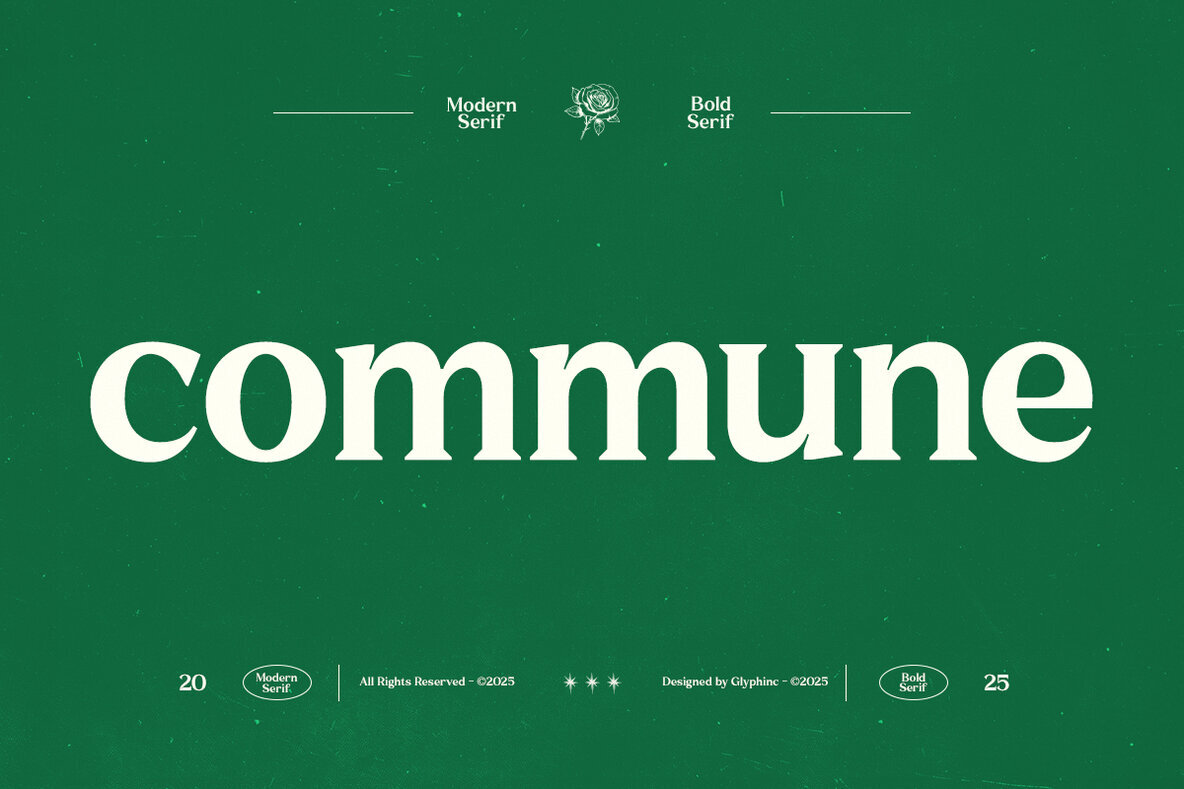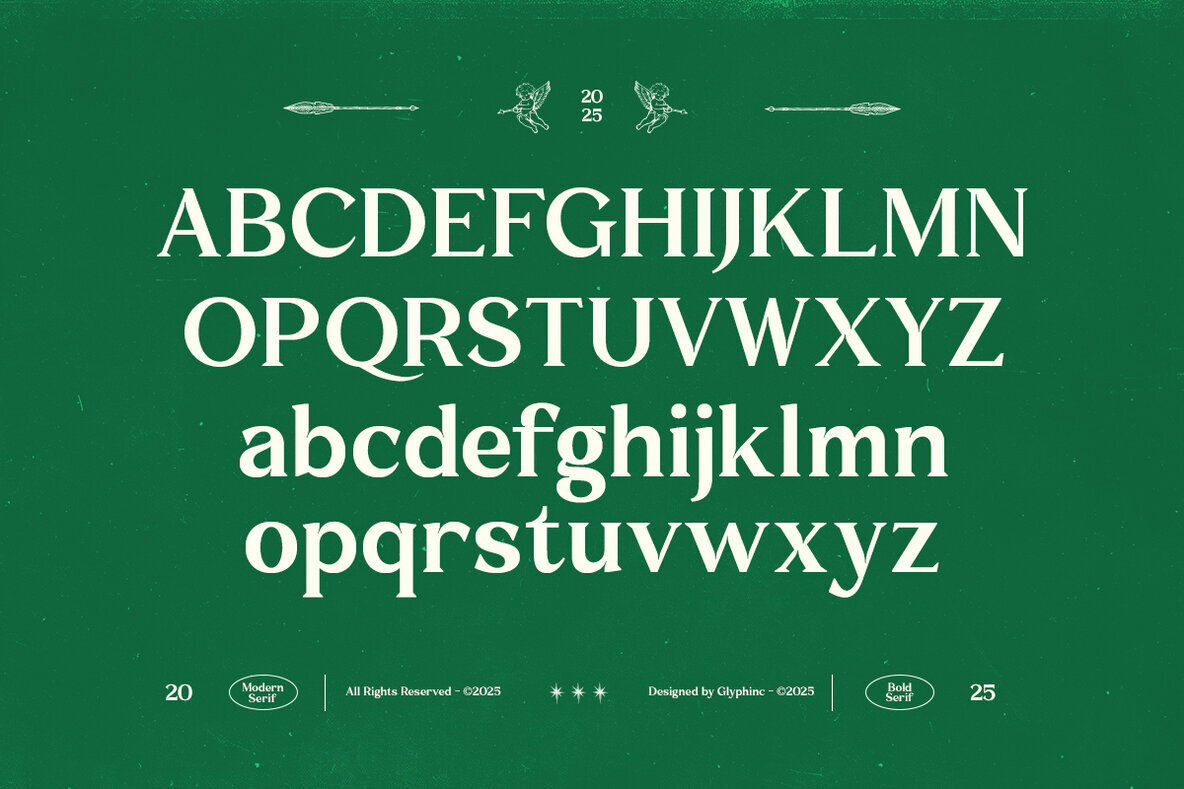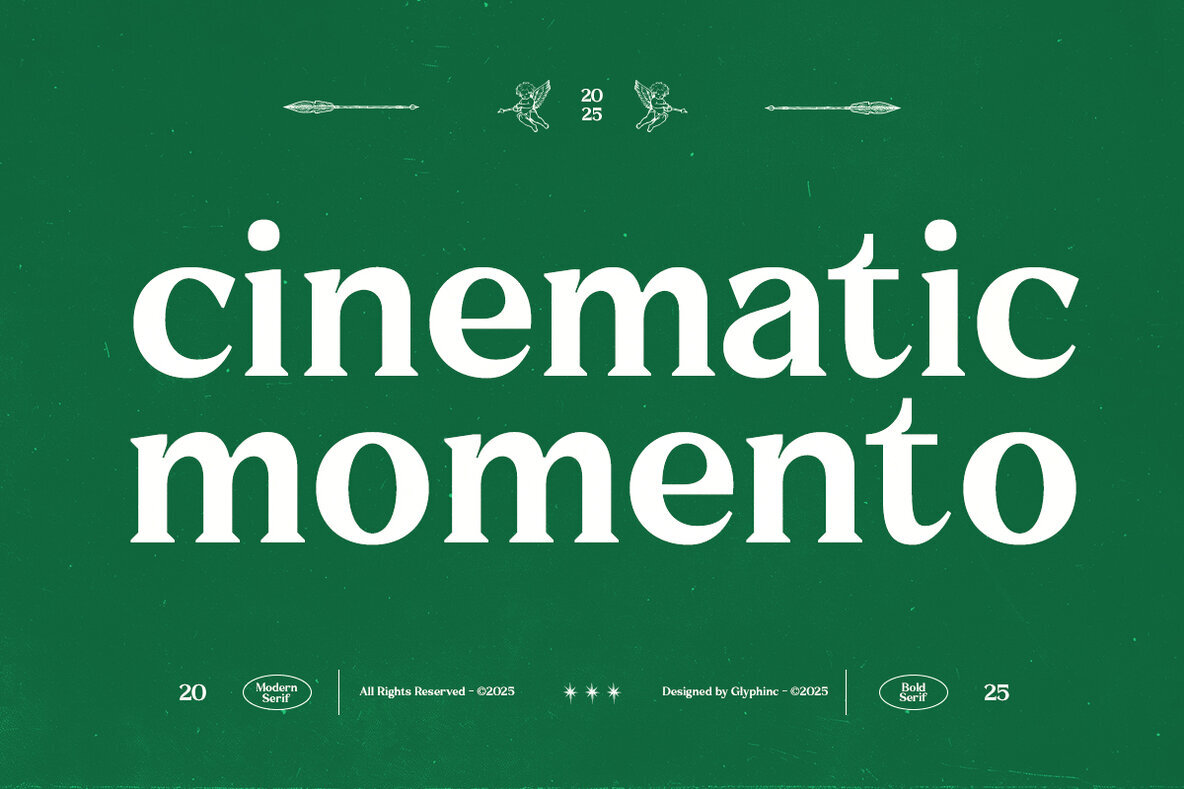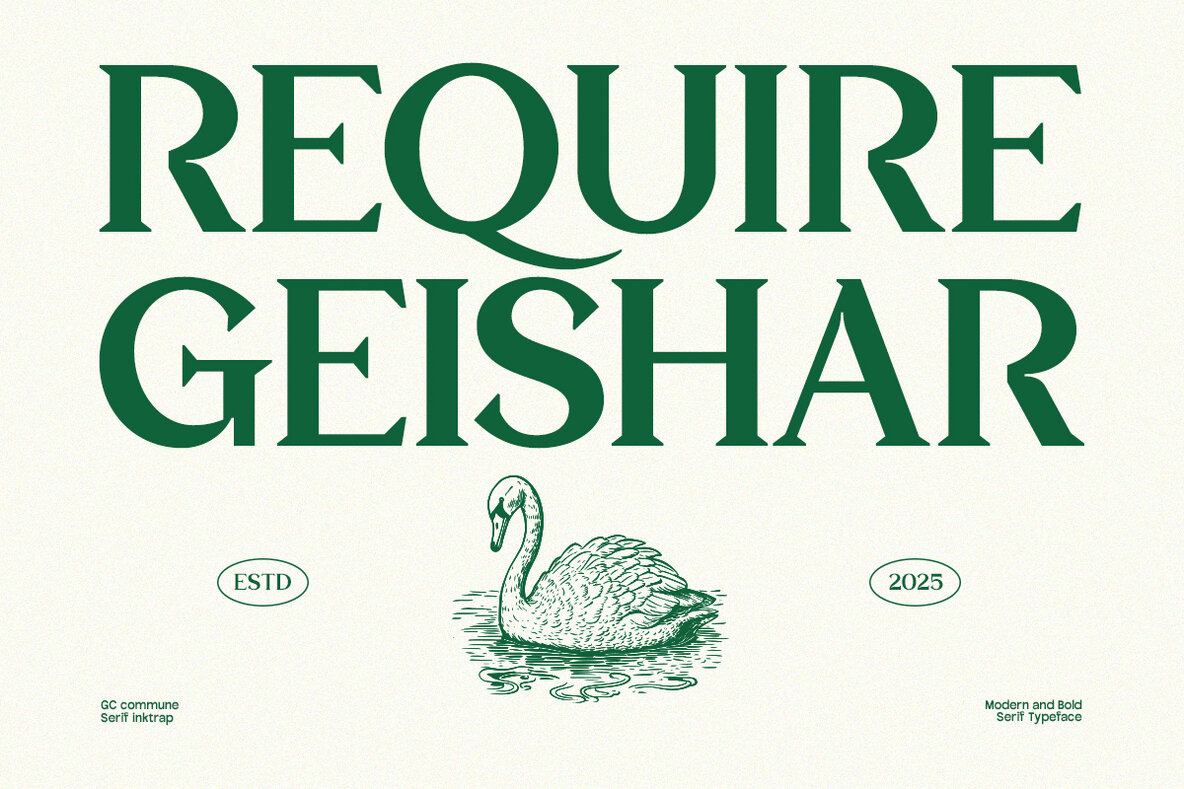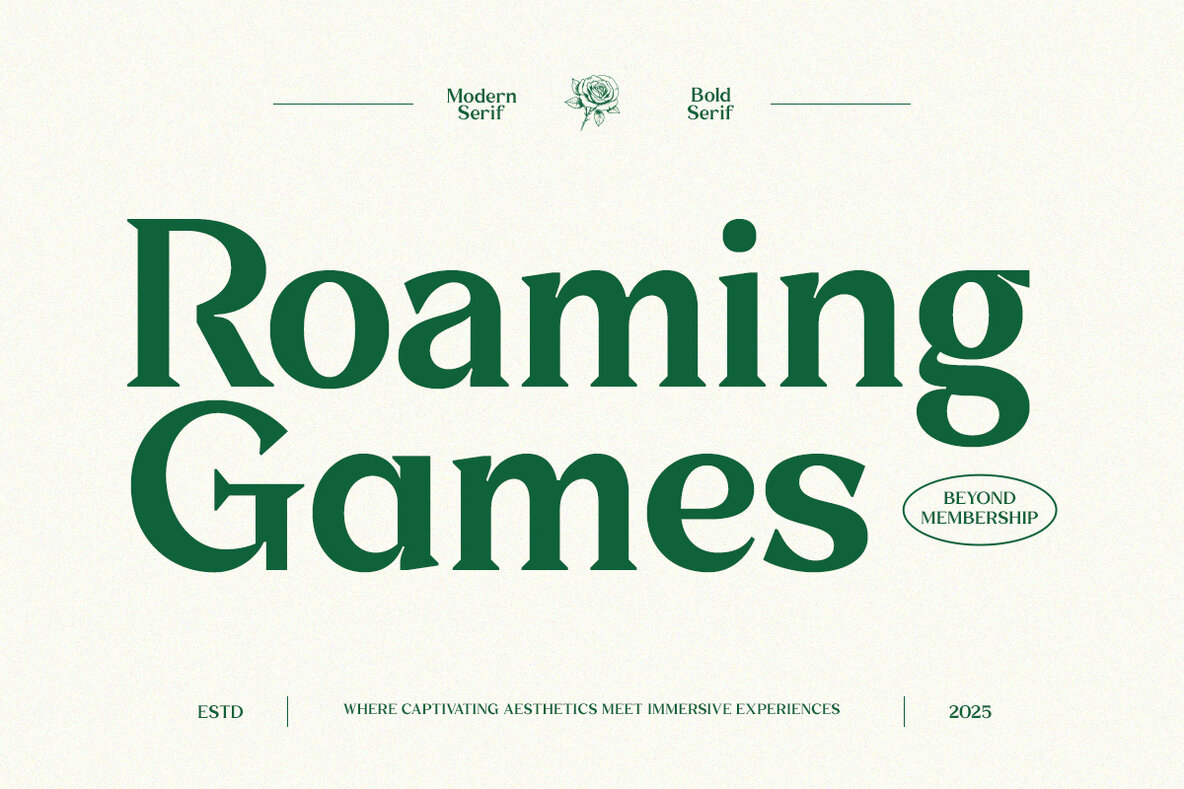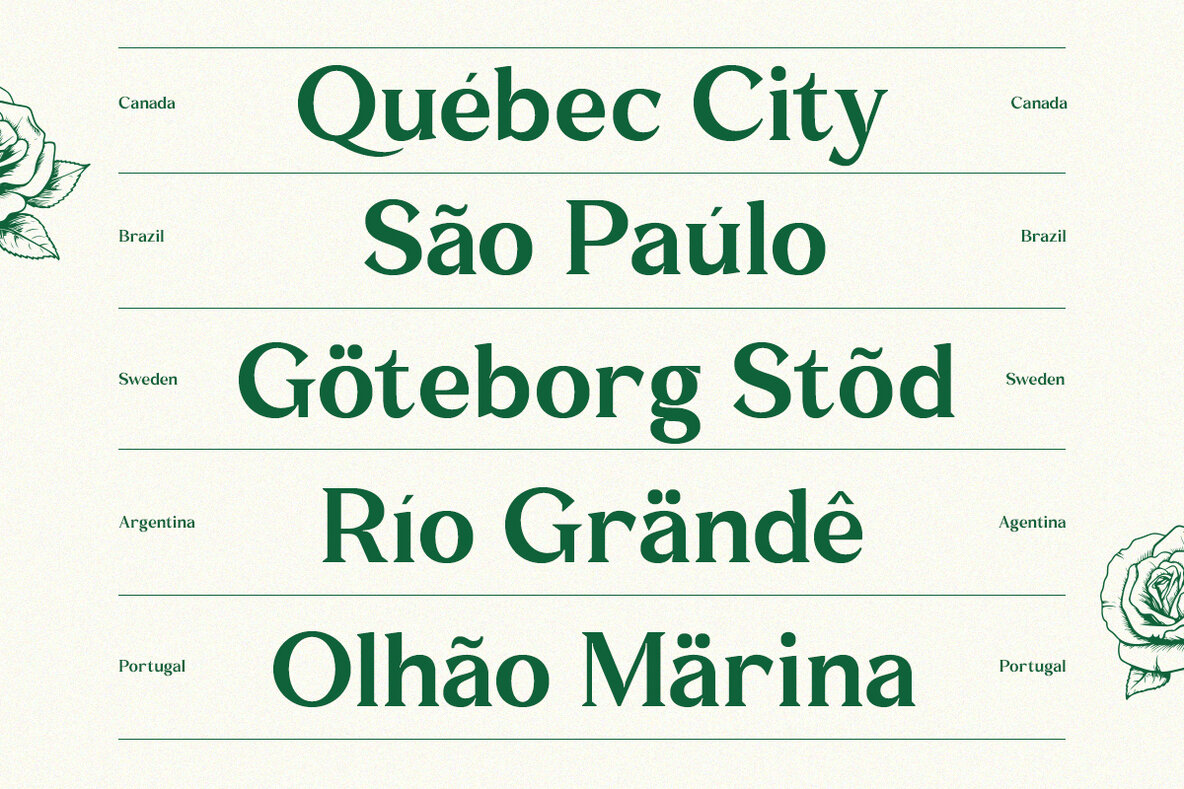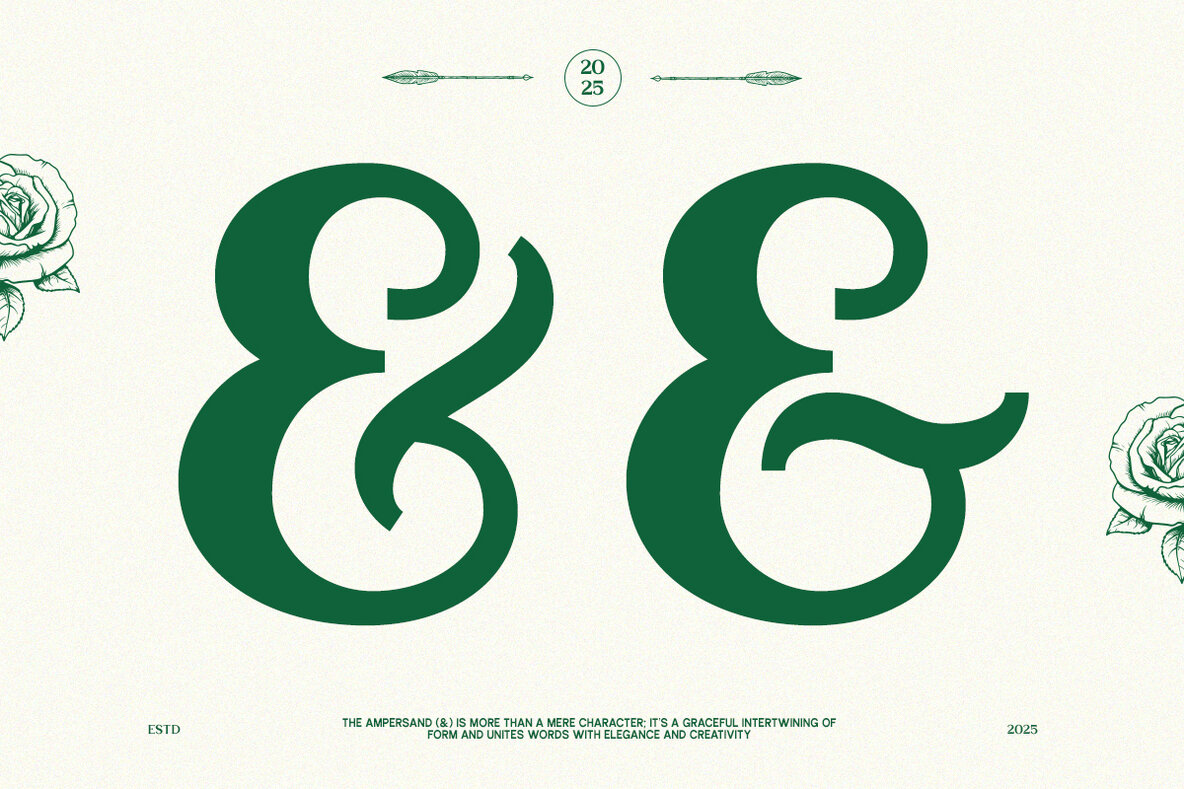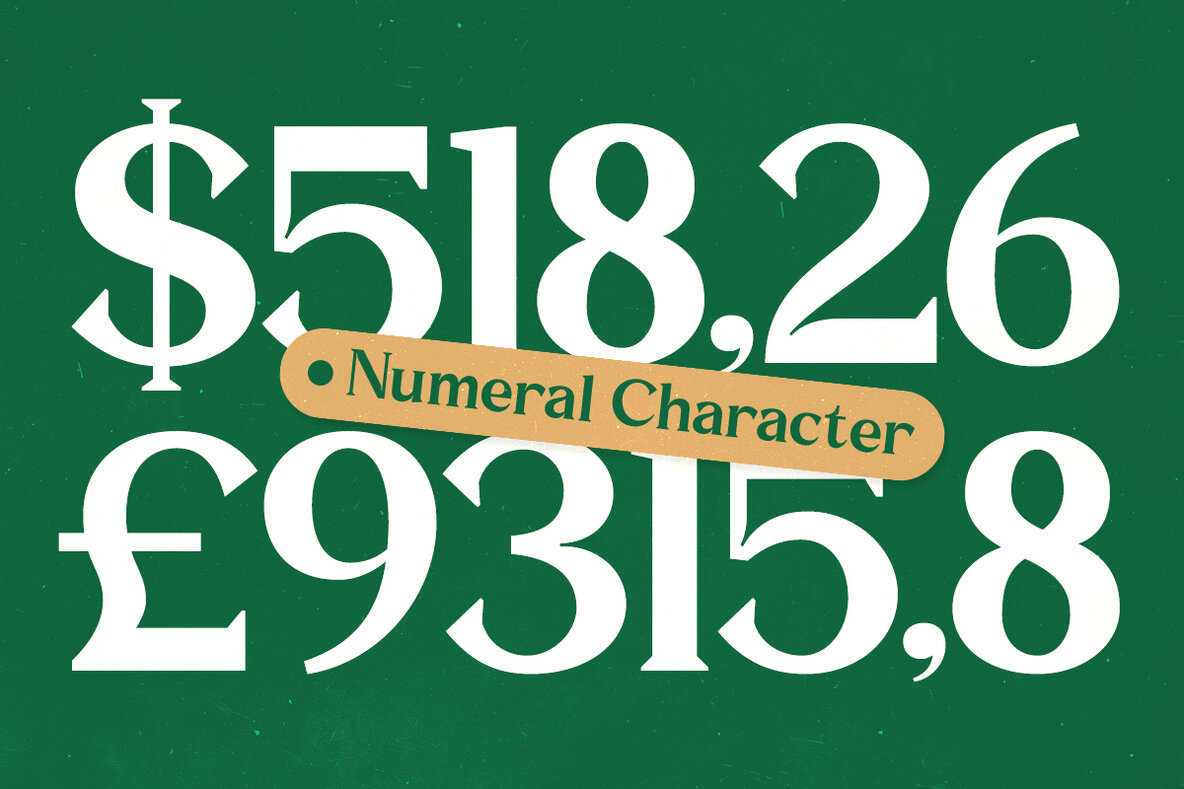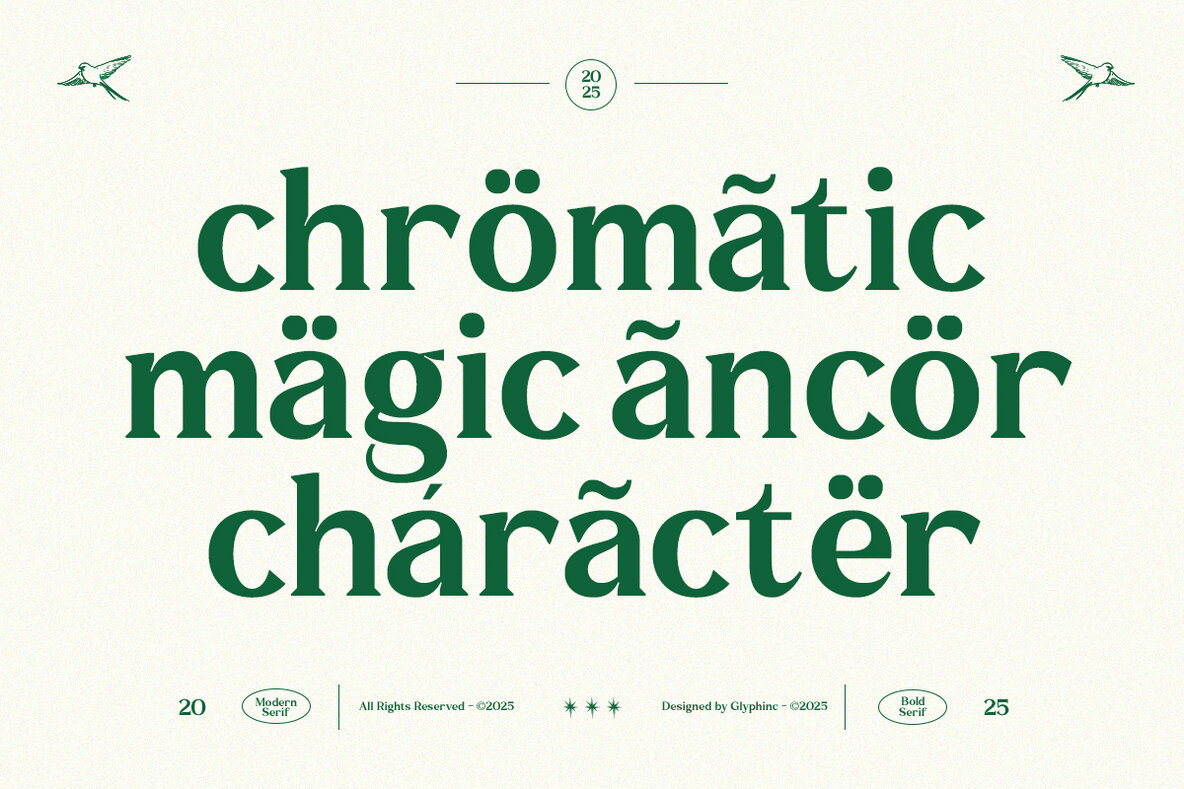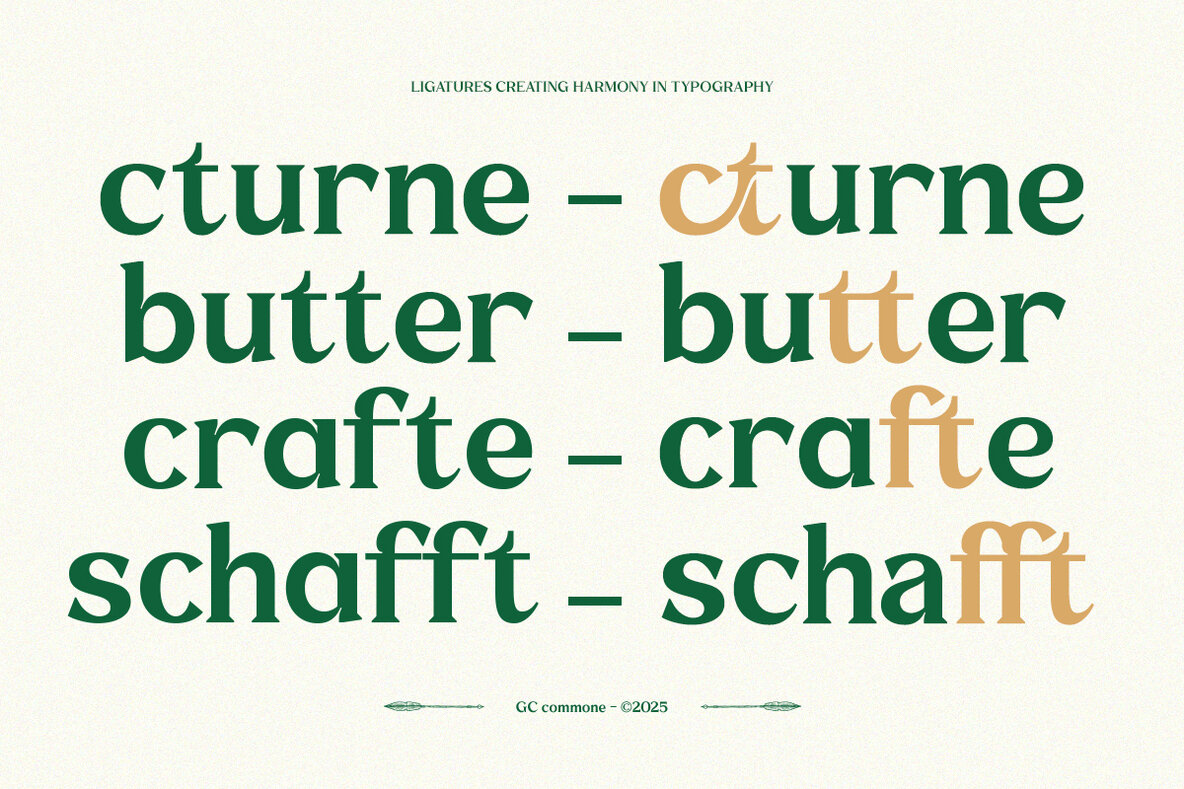
GC Commune Font
GC commune Regular
GC Commune is a bold serif typeface that combines classic elegance with modern sharpness. Its distinctive inktrap details enhance readability, making it ideal for a range of applications including headlines, branding, logos, packaging, editorial layouts, and impactful print designs. Each letter is crafted to convey both character and precision. With high-contrast strokes and structured serifs, GC Commune provides a refined yet striking appearance. It suits fashion, lifestyle, corporate, and artistic projects, offering versatility with a confident, modern edge. Features:GC Commune: A Harmonious Blend of Elegance and Modernity